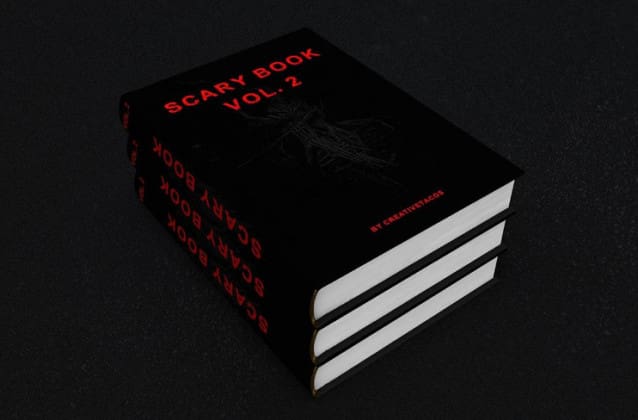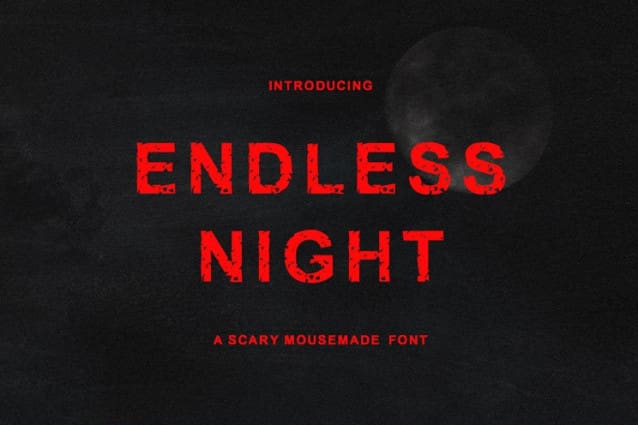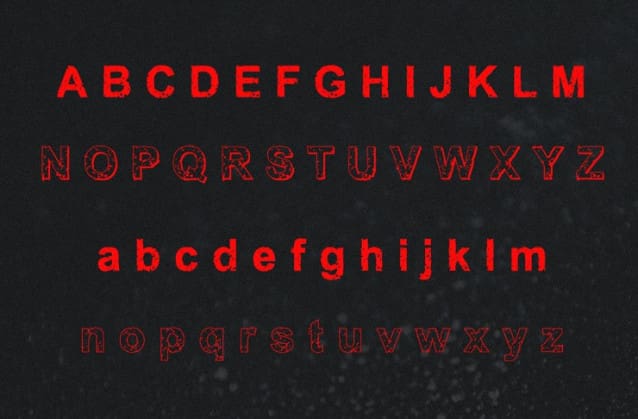
Endless Night Font
Endless Night Font, a spooky, scary and horror looking mousemade font which will help you take your halloween designs to the professional level.
It contains uppercase, lowercase, number and symbols.
Endless Night Font is stunning on logos, wedding invitations, headings, t-shirts, letterhead, signage, labels, news, posters, badges, subheadings, branding, greeting cards, craft design, book title, packaging, love letters or any other projects that need a scary and mysterious vibe.